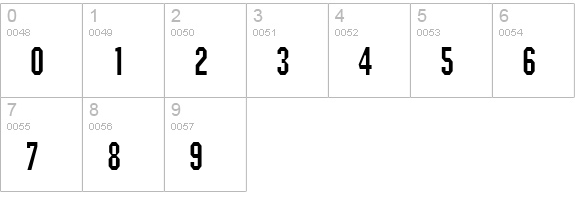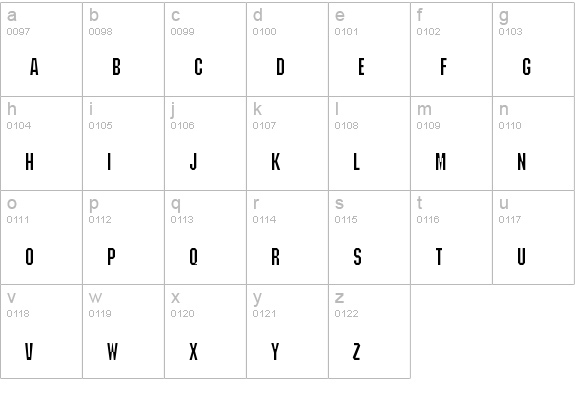
Block Condensed Normal is the standard, neutral, condensed-width variant in the Block typeface family \xE2\x80\x94 well suited to general body text, paragraphs, and standard typographic work.
Block Condensed Normal is a modern and sleek font that combines sharp edges with a condensed design, making it perfect for creating eye-catching headlines, posters, and branding materials. Its clean and minimalist aesthetic is versatile and can be used for various design projects, adding a touch of sophistication and professionalism. This font is available for free download exclusively at FontsMarket.com, offering designers and creatives an opportunity to enhance their projects with a high-quality typeface without any cost. With its bold and distinct style, Block Condensed Normal is sure to make a statement and stand out in any design layout. Elevate your designs with this unique and stylish font today!